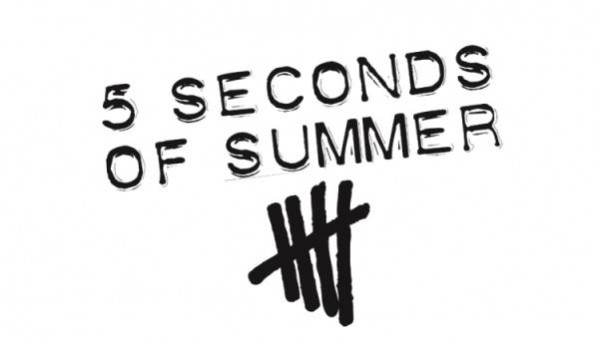
5 Seconds of Summer Font
Band5 Seconds of Summer (5SOS) is an Australian pop rock band formed in Sydney in 2011. They rose to international fame with their 2014 debut album "5 Seconds of Summer," which featured hit songs such as "She Looks So Perfect" and "Amnesia."
The band's logo, which can be seen on EPs like "She Looks So Perfect" and "Somewhere New," has titled text written in a fancy font. To get a similar feel of the logo, you can see FF Dyanmo, despite their similar appearance, letters may differ.
The hand-drawn initials in this 5 Seconds of Summer logo are set against a dark, circular background. You can reproduce the letters using a free font named "Loved by the King." For the full name below, it is in Helvetica Neue Bold.